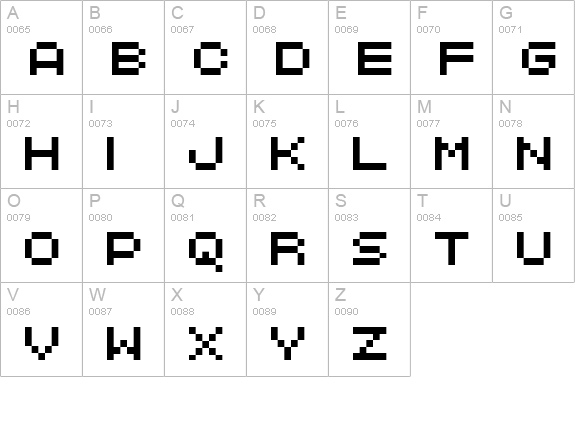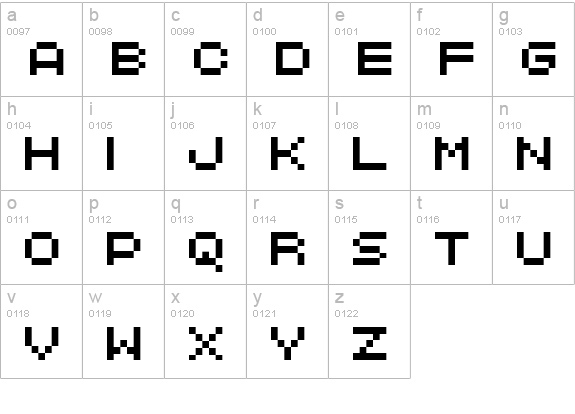
AddMBitmap06 Font Details
AddMBitmap06 font is a unique and versatile typeface that adds a touch of creativity to any design project. With its bold and edgy appearance, this font is perfect for making a statement and catching the eye of your audience. The intricate details and sharp lines of AddMBitmap06 font make it a standout choice for logos, headlines, and other graphic design elements. What makes AddMBitmap06 font even more appealing is that it is available for free download at FontsMarket.com. This means that you can easily access this stylish font and incorporate it into your projects without any cost. Whether you're a designer looking to add a modern twist to your work or a business owner aiming to create a memorable brand identity, AddMBitmap06 font is a fantastic choice that won't break the bank. Download AddMBitmap06 font today and elevate your designs to the next level!